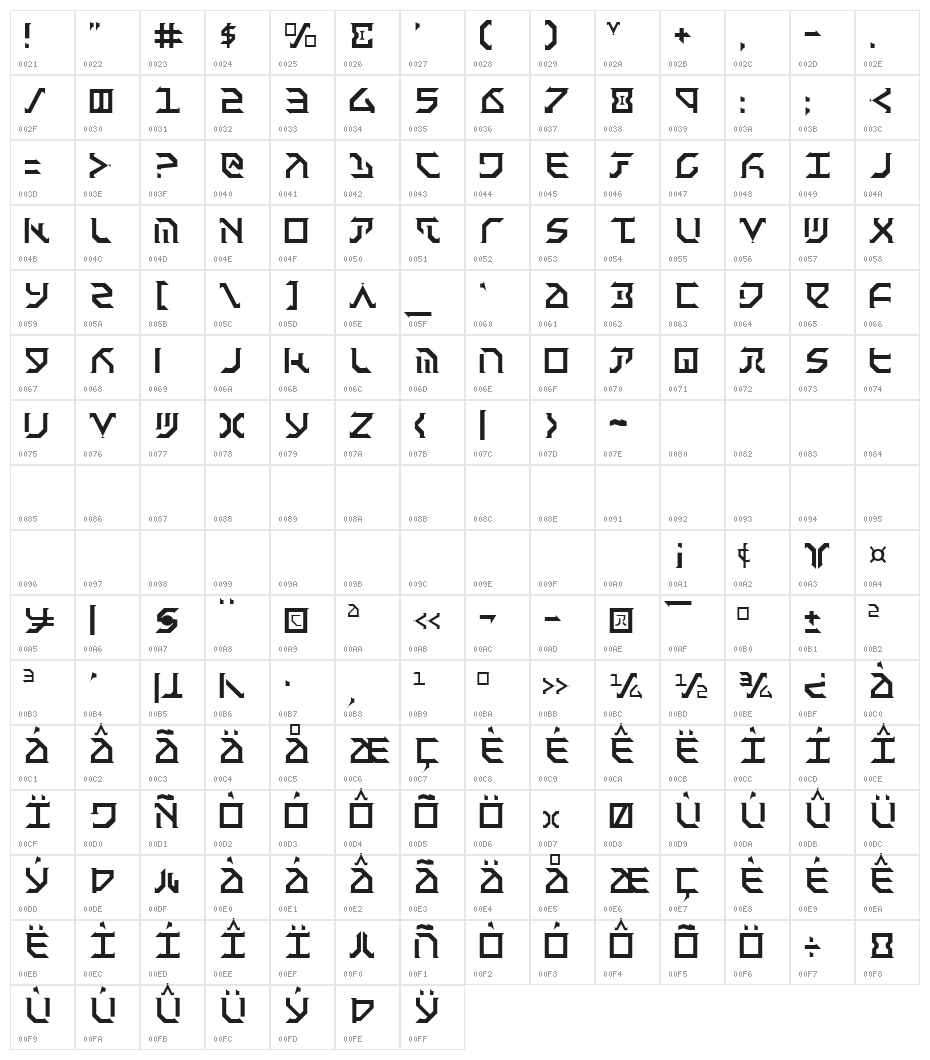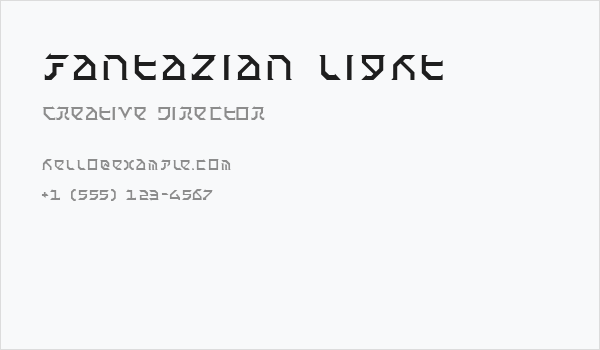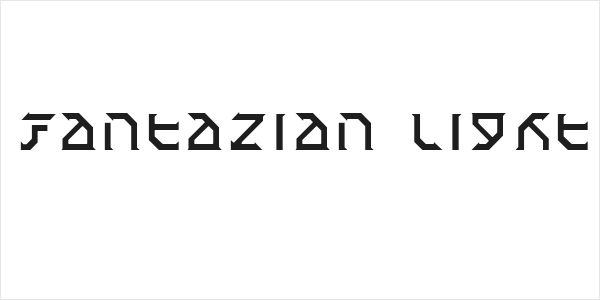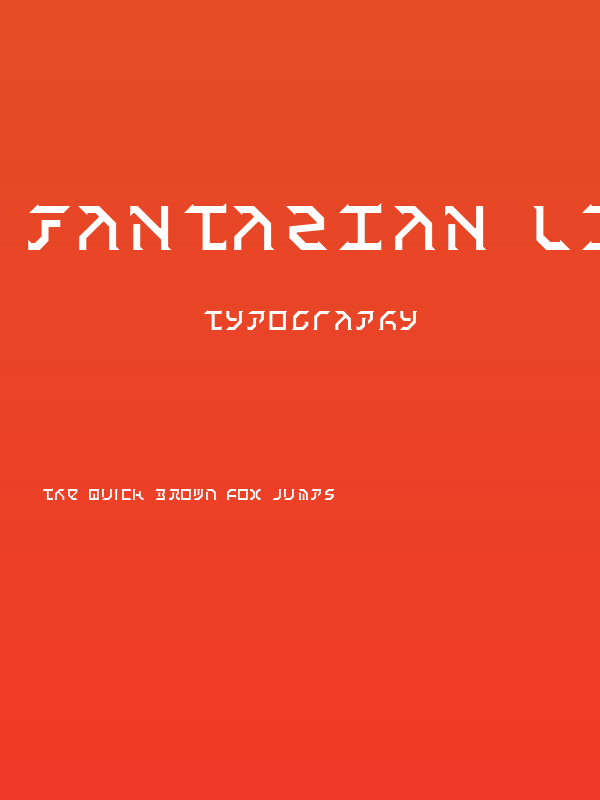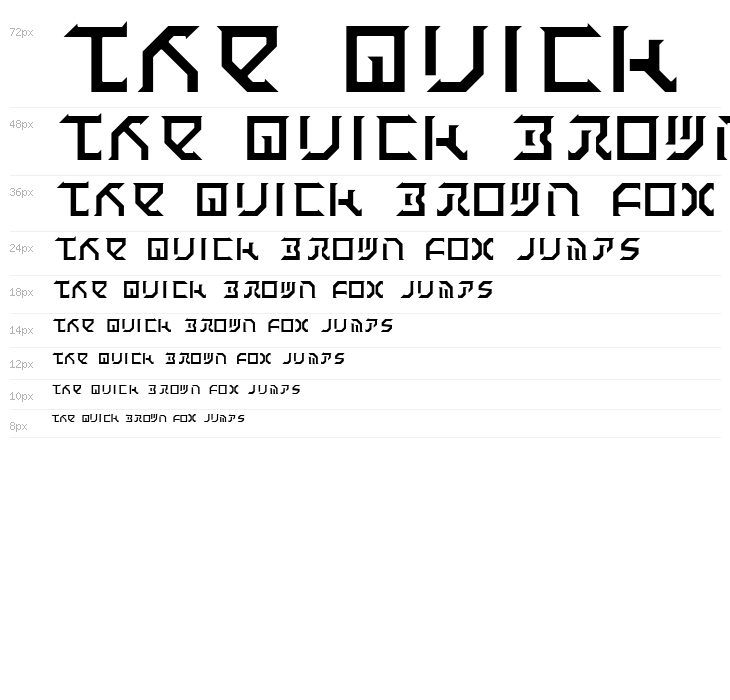
Fantazian Light Font
Fantazian Light Description
This font features a futuristic and angular design, characterized by sharp edges and geometric forms. The letters are constructed with bold, straight lines and acute angles, giving it a distinct, modern appearance. The uppercase and lowercase letters maintain a consistent style, with a unique approach to character design that emphasizes symmetry and uniformity. The numerals follow the same angular theme, ensuring a cohesive look across all characters. Special characters are also designed to match the overall aesthetic, making this font suitable for projects that require a bold and striking visual impact.
| Proposed Projects | Ideal for sci-fi themed designs, video game graphics, technology branding, and futuristic posters. |